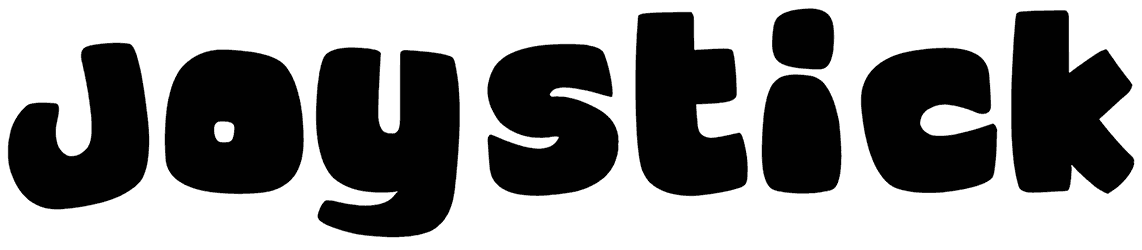
Joystick Font
It can be hard to find the right font for a casual event, so we’d like to introduce you to Joystick, a bold and cute cartoon font that works well for arcade games, books, posters, phone case designs, and so on.